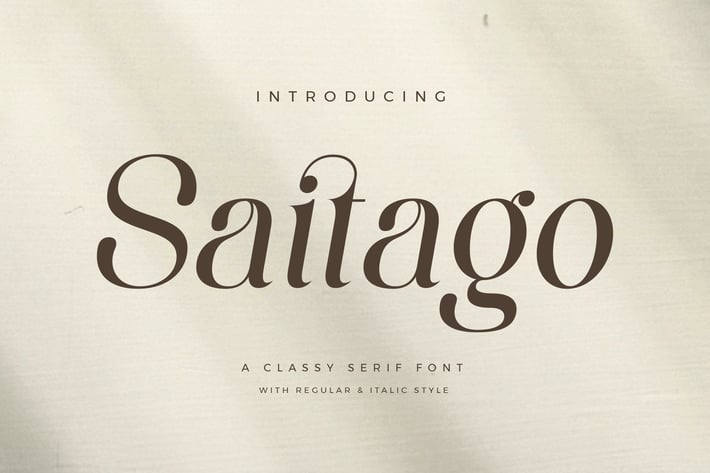
Saitago Classy Serif Font
Saitago Stylish Ligature Typeface, inspired by the famous minimalist logo perfect for the purposes of designing templates, brochures, videos, advertising branding, logos and more.